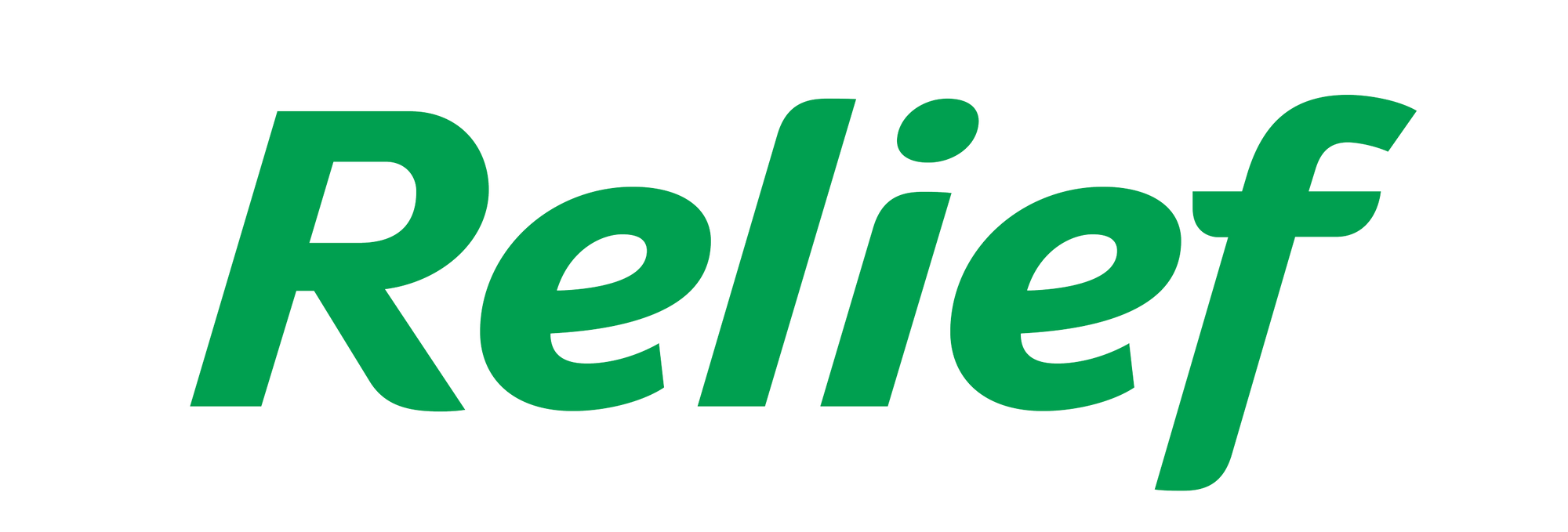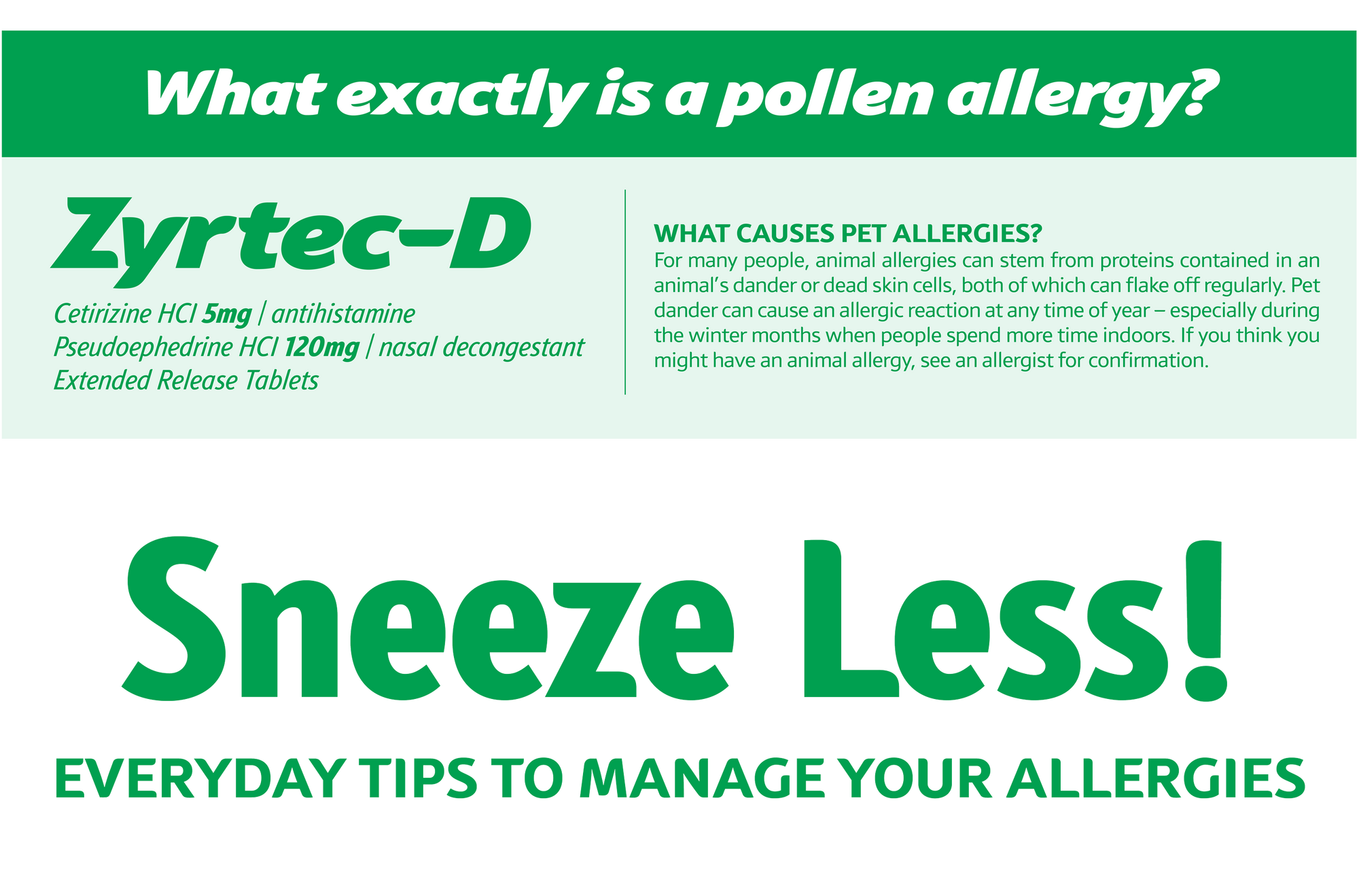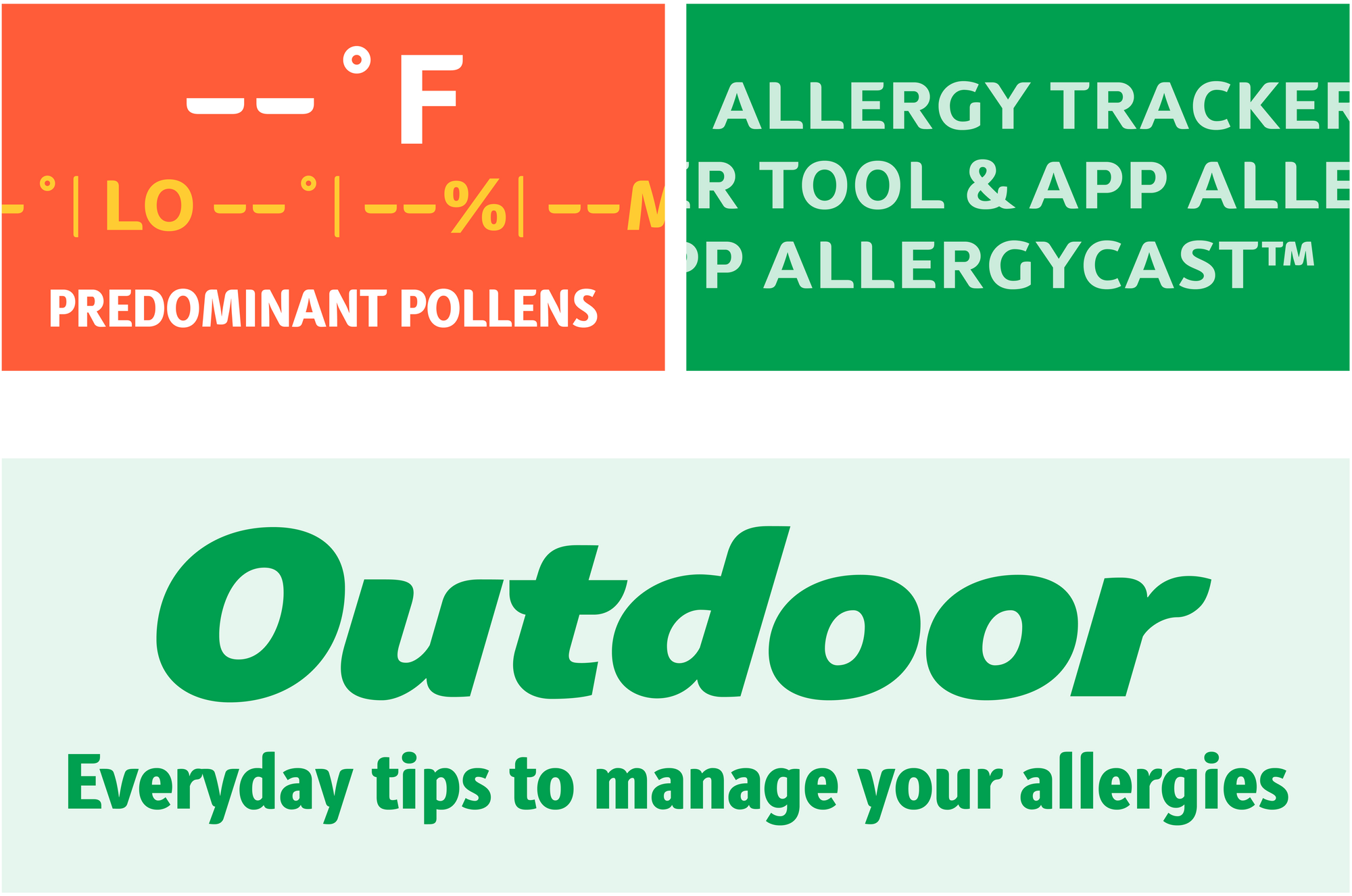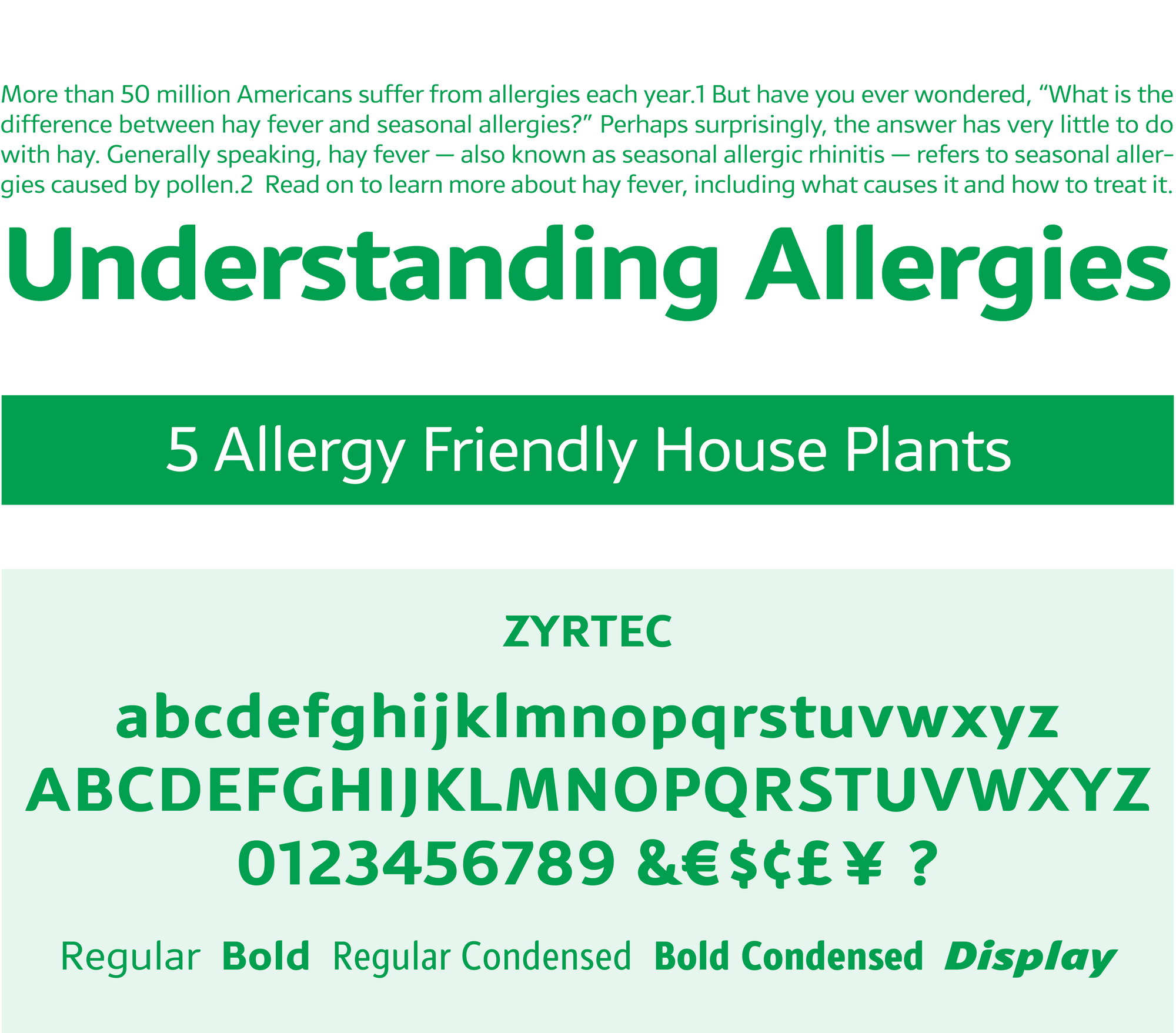
Zyrtec, Johnson & Johnson
As part of the brand evolution for the leading over-the-counter antihistamine, LuxTypo was commissioned to create a comprehensive font family based on the existing Zyrtec logo. The new type palette has been applied across-the-board to Zyrtec products and marketing materials.
Specs:
9 styles